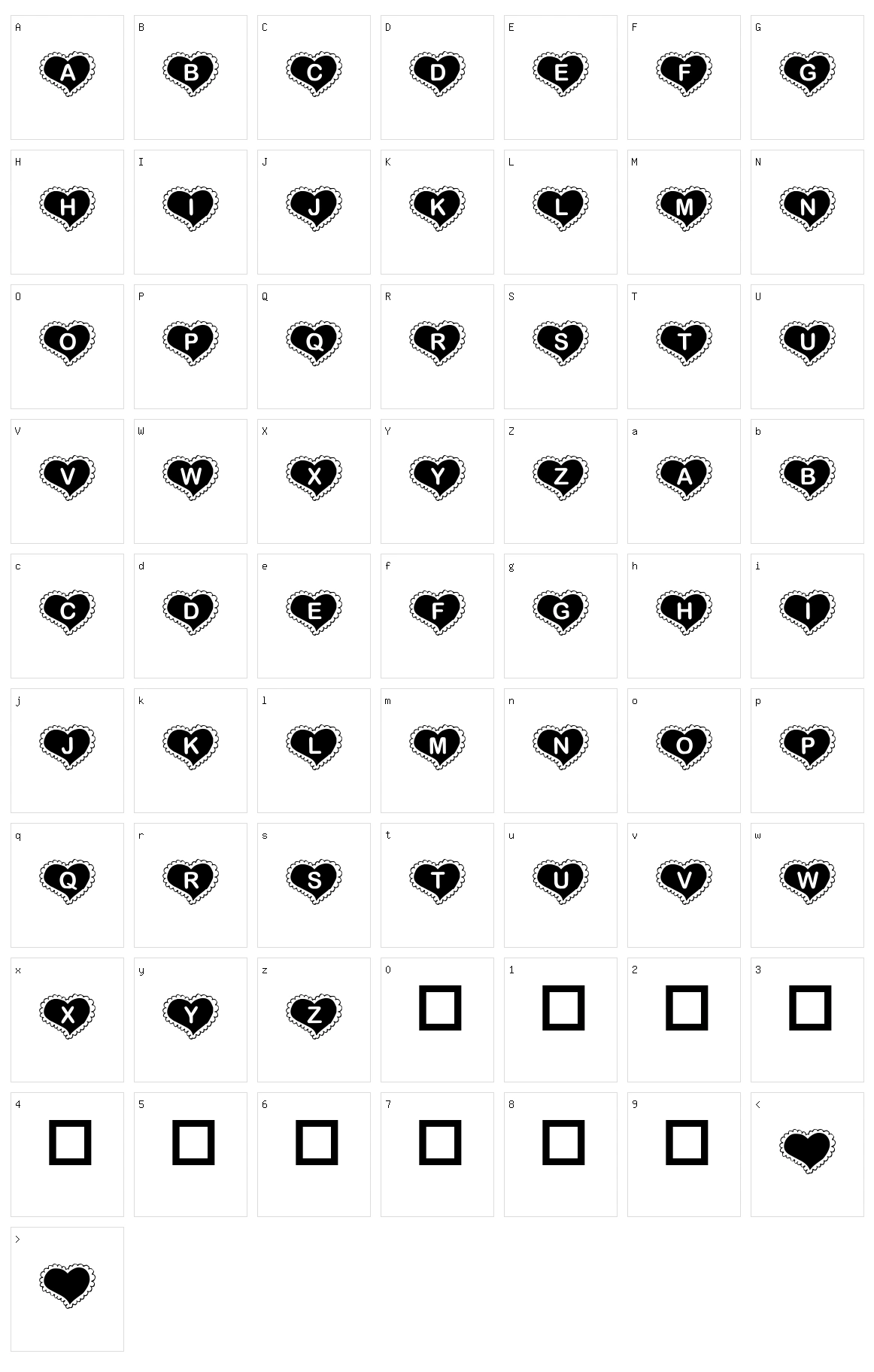
The free font KR Valentine Heart is carefully designed by Kat's Fun Fonts, showcasing a thoughtful balance of creativity and usability and falls under the Valentine font style. When you download the ZIP file, it contains only 11.21 KB of font files, making it lightweight and quick to download. Please review the license details below to understand permitted usage and distribution rights. If license information is not available, we recommend using this font for personal projects only or contacting the author directly for commercial usage permissions.